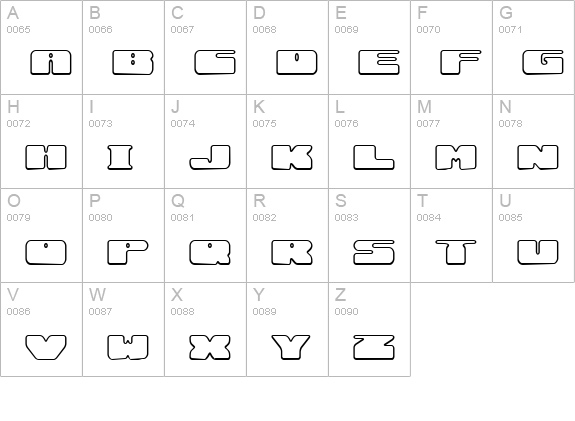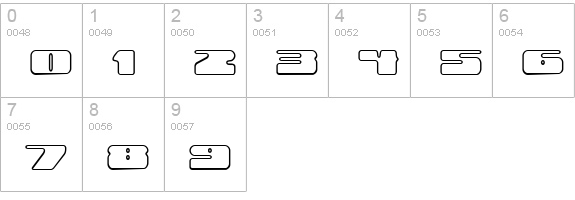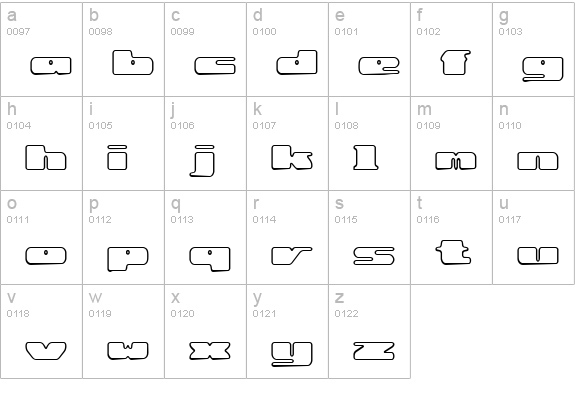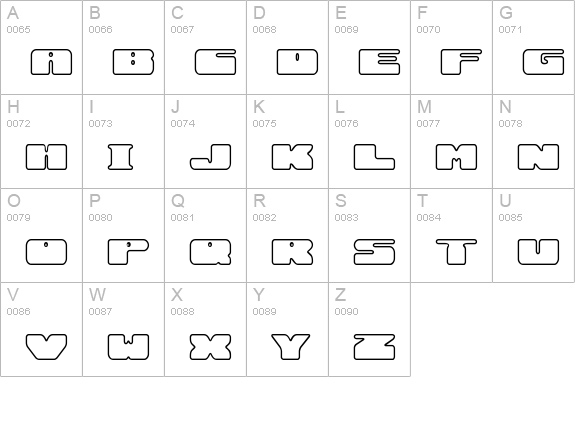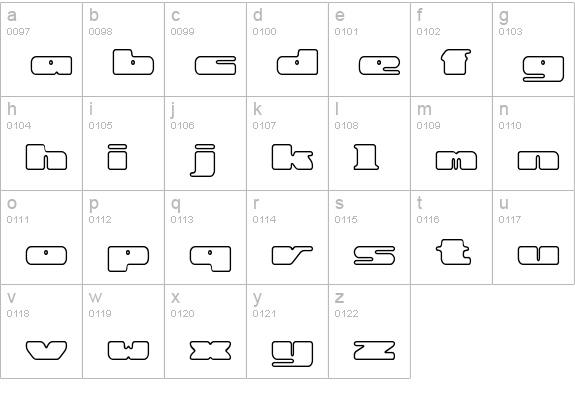
Rotund Outline (BRK) Font Details
Rotund Outline (BRK) is a charming and playful font that adds a touch of whimsy to any design project. With its rounded edges and bold lines, this font exudes a sense of friendliness and creativity. Perfect for headlines, logos, posters, and more, Rotund Outline (BRK) stands out with its unique and eye-catching style. What's even better is that Rotund Outline (BRK) is available for free download at FontsMarket.com. This means you can easily access this fun and versatile font to enhance your creative projects without any cost. So why wait? Download Rotund Outline (BRK) today and let your designs shine with its distinctive charm and personality.